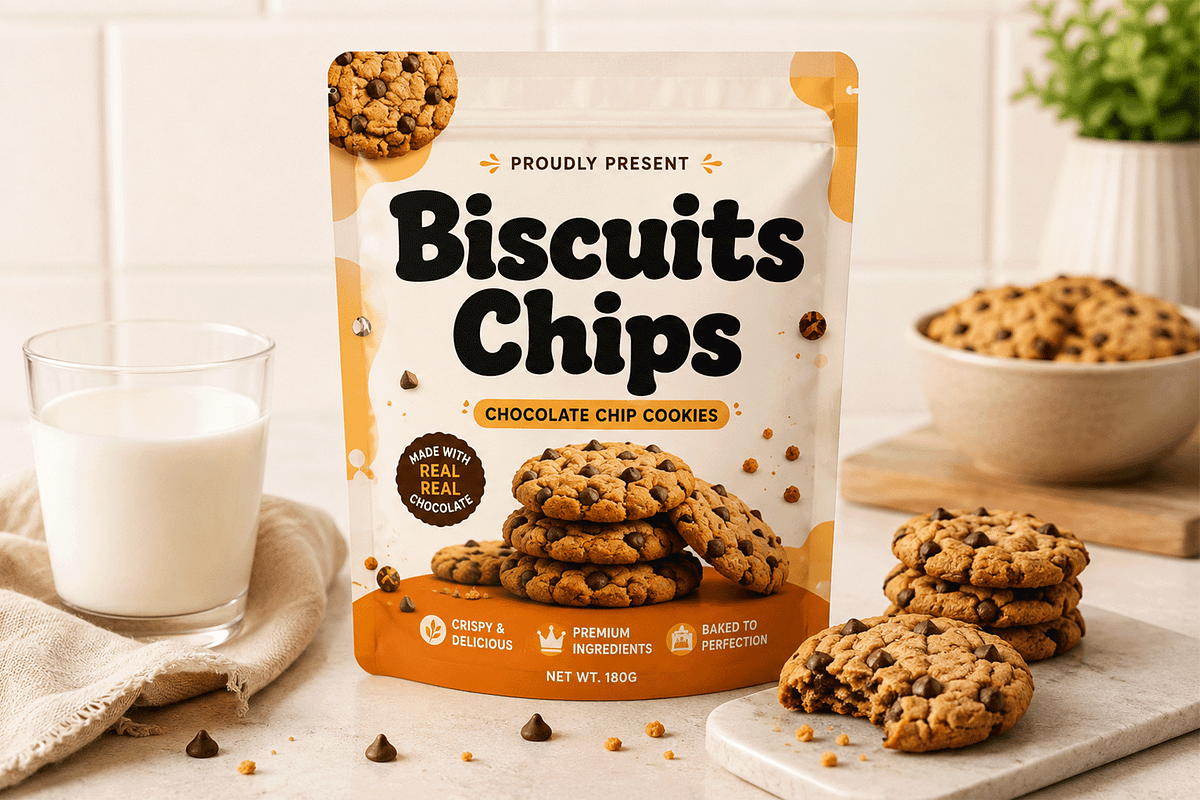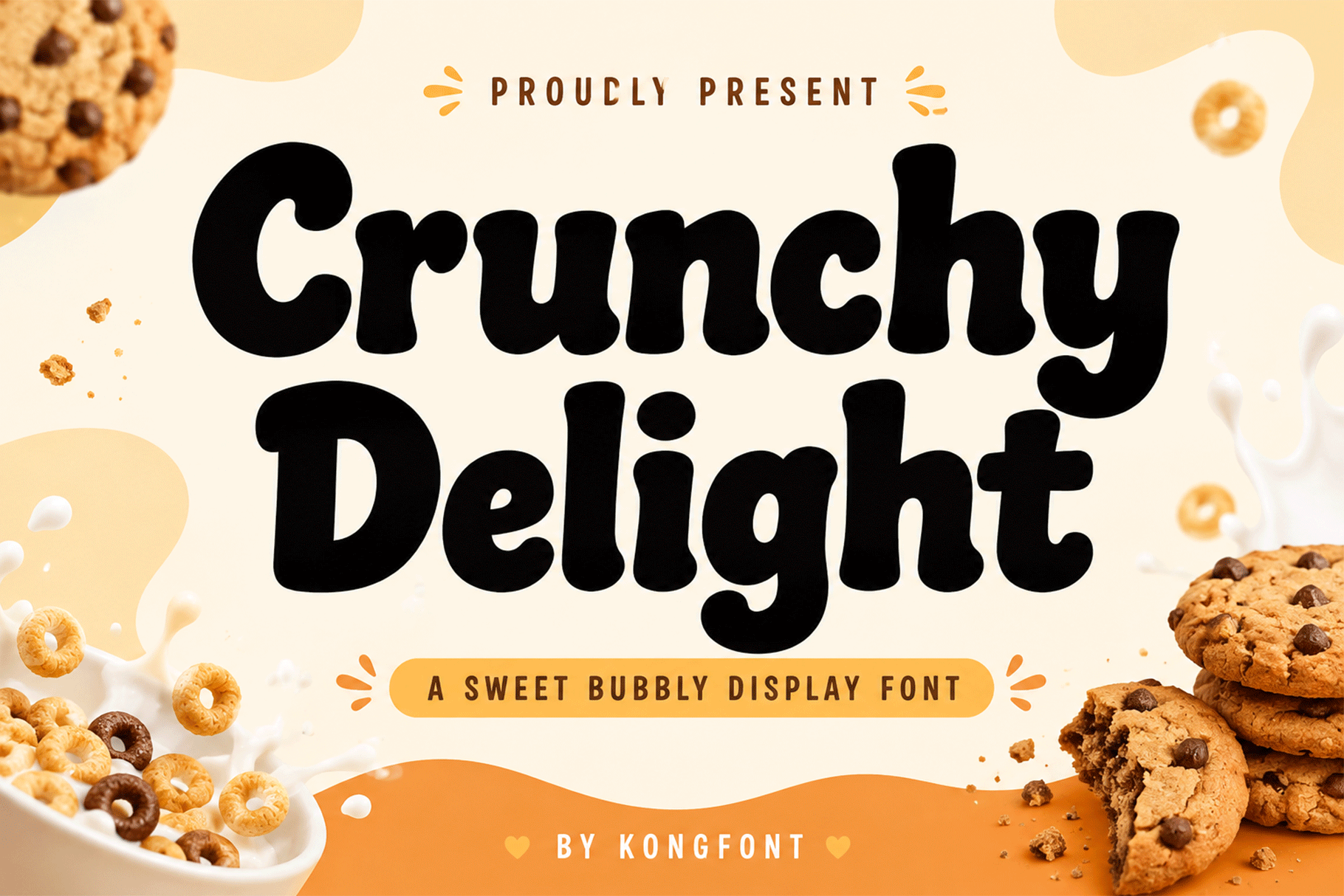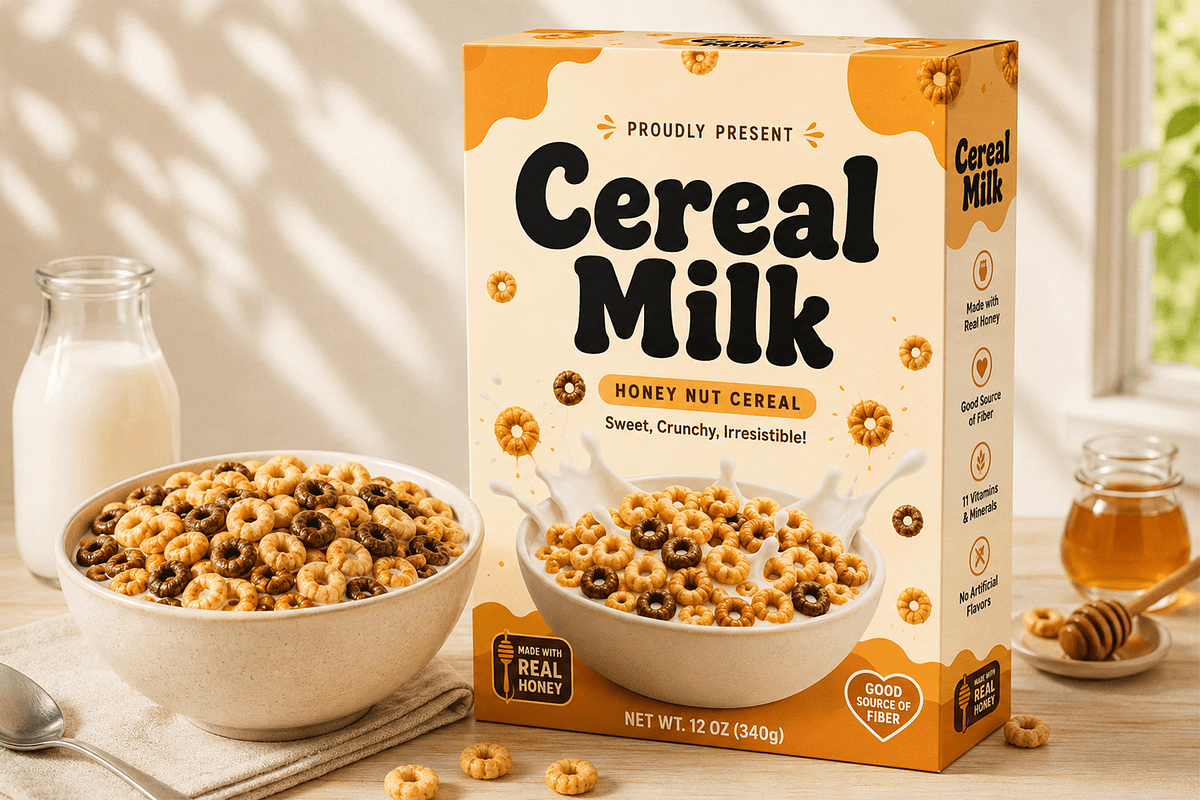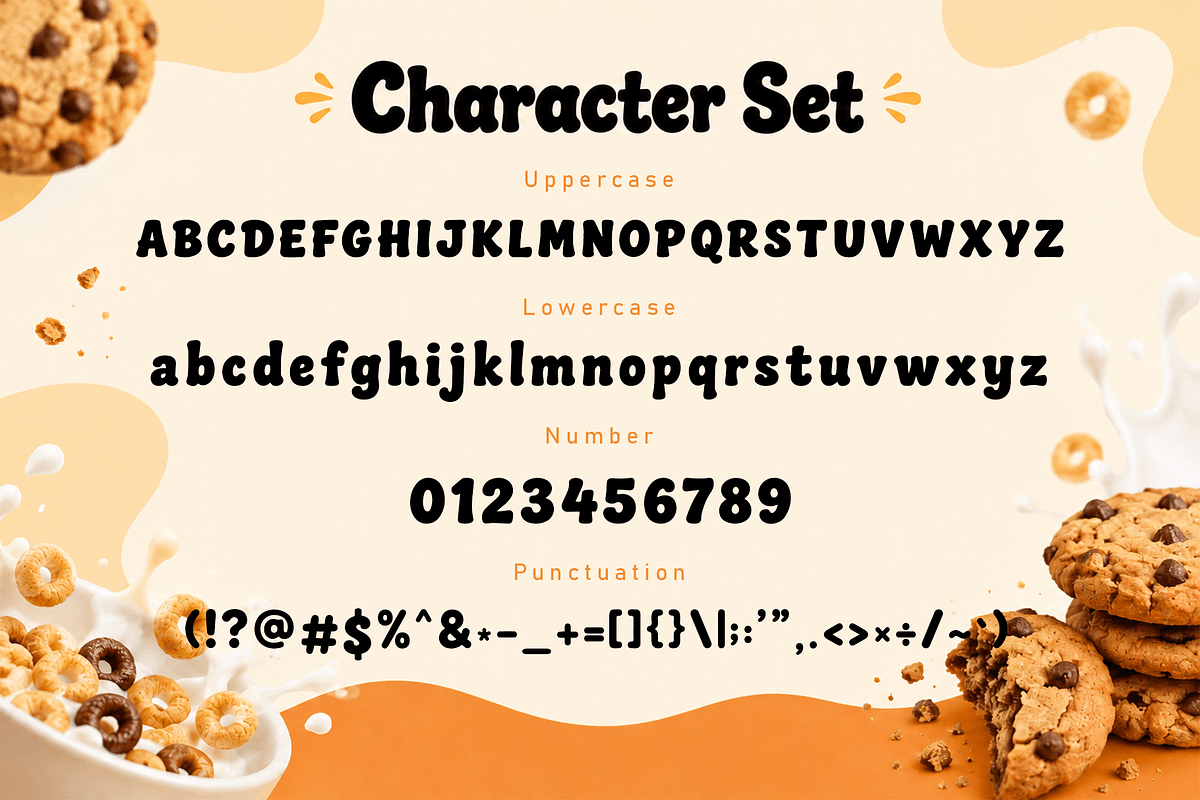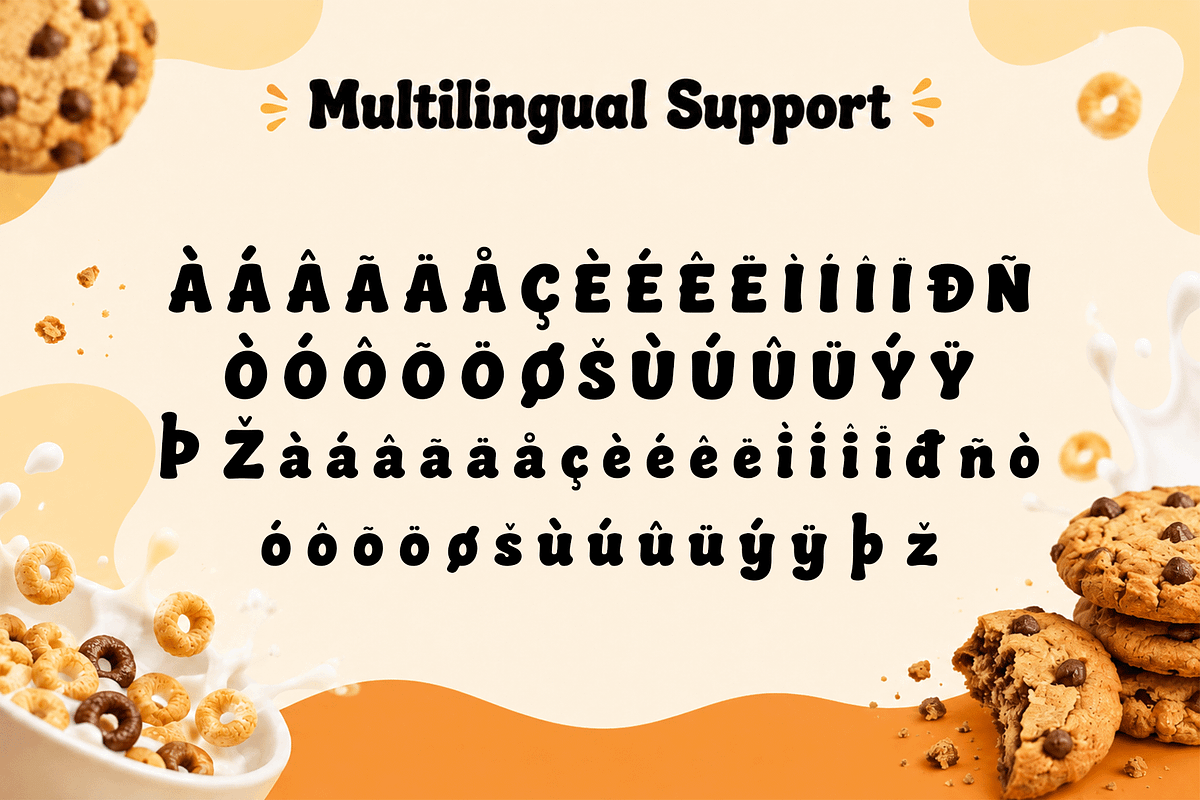
Crunchy Delight - Sweet Display Font
Crunchy Delight - Sweet Bubbly Display Font
Meet "Crunchy Delight," a sweet bubbly display font designed with chunky shapes, soft curves, and a cheerful personality. Inspired by cookies, cereal, desserts, and playful food packaging, Crunchy Delight brings a fun and delicious visual character to every word.
Crunchy Delight works especially well for cookies, milk brands, breakfast products, candy packaging, ice cream shops, food promotions, kids’ merchandise, and colorful lifestyle projects. Its playful personality helps designs feel warm, energetic, and easy to remember.